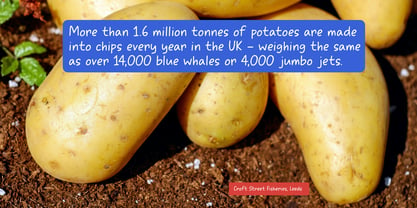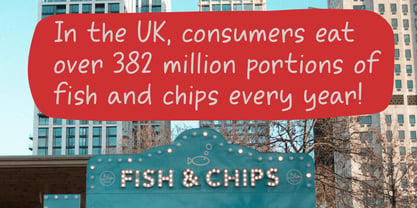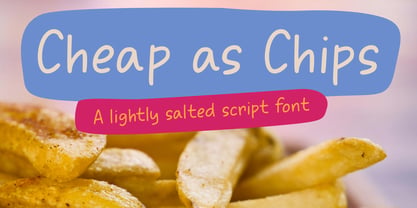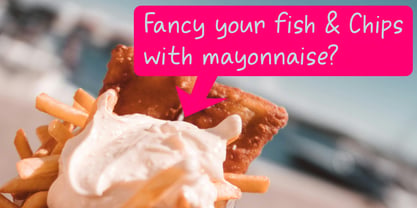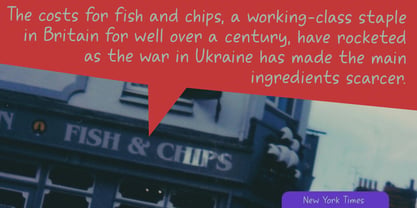
Cheap As Chips Pro
by Hanoded
I love Fish & Chips, especially when I am hiking in the UK. I do have to say that the best F&C I have ever had was in New Zealand, but since that means travelling to the end of the world, I will make do with the British snack.
Cheap As Chips is a British expression, but nowadays it is a bit redundant, as Fish & Chips are not cheap. Over-fishing, lost harvests due to extreme weather and the war in Ukraine (where a lot of potatoes and wheat (for the batter) are grown) all make for an expensive dinner.
Cheap As Chips font, however, lives up to its name. It is not too expensive, it will go with just about anything and it doesn’t smell fishy at all.